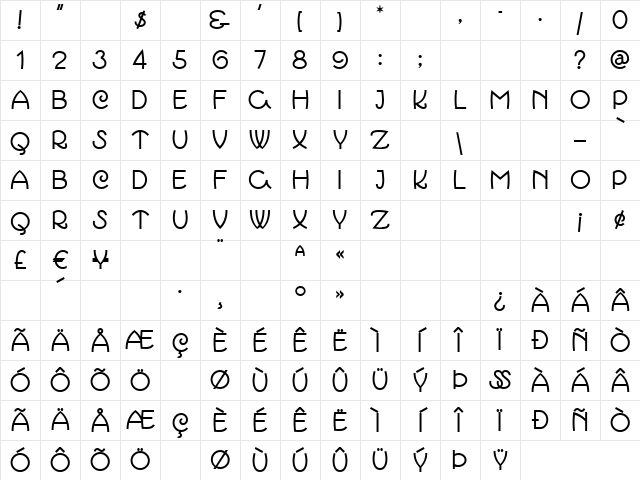
MarchMadnessNF Regular
Foundry: Nick's Fonts
Designer: Nick Curtis
Design Context for MarchMadnessNF
MarchMadnessNF is a composed and adaptable typeface that performs quietly and consistently across a wide range of design contexts.
Pro Tip: Use MarchMadnessNF in both headline and body roles to test its range before committing to a single application.